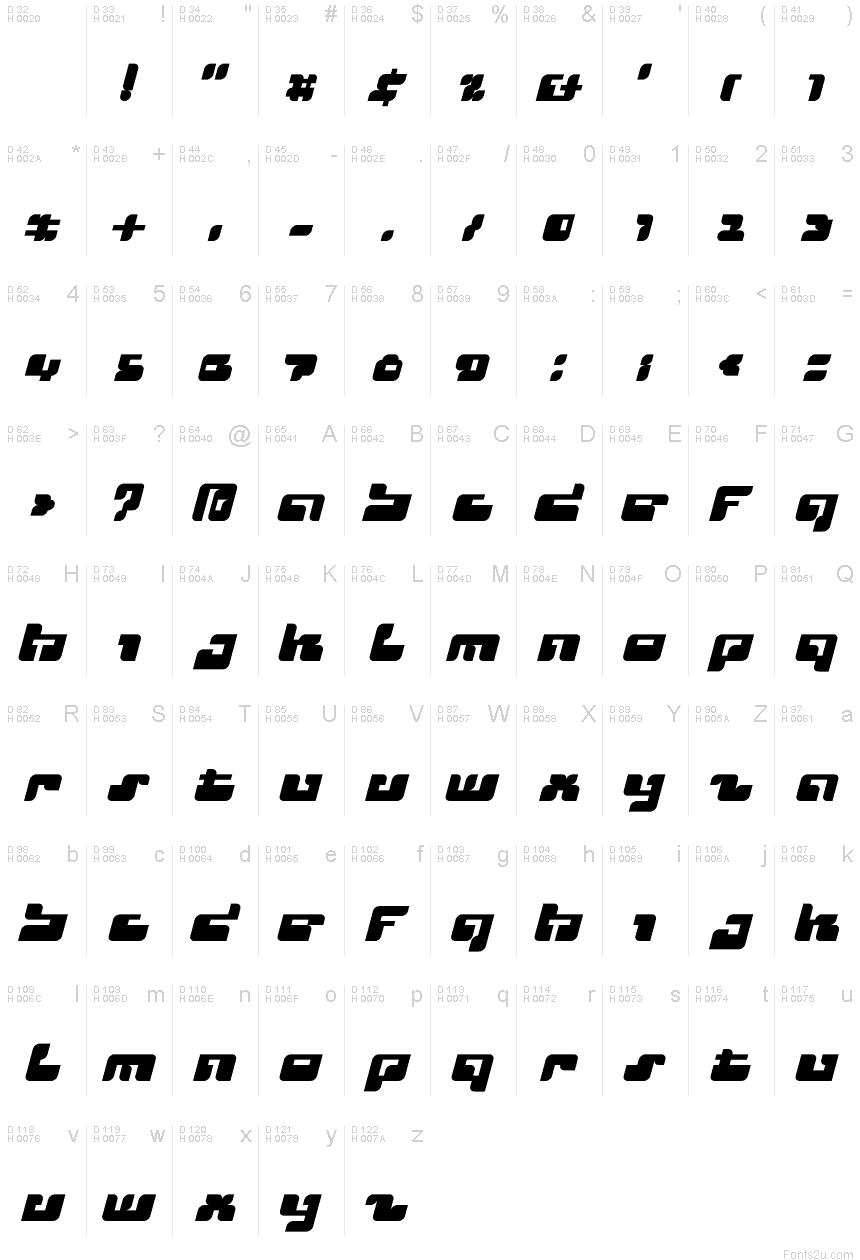
Cyclops
Cyclops font by Koen Hachmang is a free futuristic display typeface with a bold, forward-leaning swagger. Every letter feels like it’s caught mid-sprint—chunky, aerodynamic shapes with smooth curves and sliced-out counters give it a fast, turbo-charged energy. The tight rhythm and heavy weight create a strong, unified word shape that reads like a custom logotype straight out of a sci‑fi racing league.
Using Cyclops, you can push high-impact titles for esports teams, gaming covers, racing posters, tech branding, synthwave music events, or bold YouTube thumbnails. This free font really shines when it’s big and unapologetic; keep supporting text in a clean geometric sans at smaller sizes so Cyclops can do the high-speed shouting.